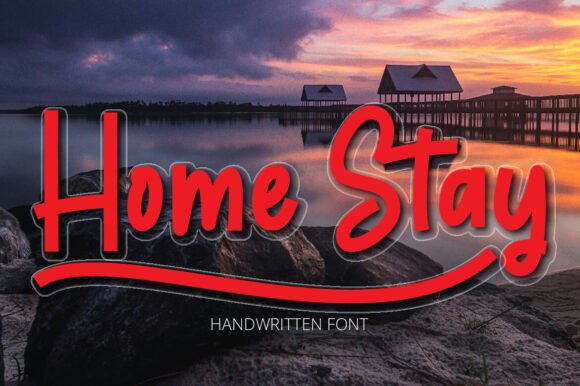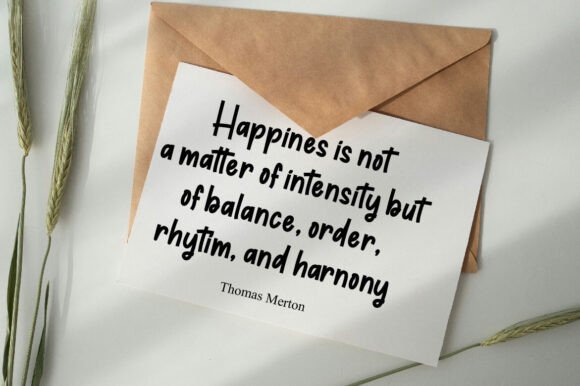
Home Stay Font
About the Home Stay Font
Explore the possibilities with Home Stay Font, a font that offers both beauty and functionality. Introducing Home Stay Font, an elegant modern handwritten font. It has a classy, elegant and modern look that can be used for logos, branding, invitations, stationery, wedding designs, social media posts, and much more! This font is PUA encoded which means you can access all of the amazing glyphs and ligatures with ease!
Home Stay Font’s elegant, modern handwritten style is ideally suited for headlines, short text blocks on invitations and branding materials, and social media graphics. Its refined aesthetic works well for upscale brands and projects requiring a touch of sophistication. However, avoid using it for large bodies of text or UI elements; its delicate nature makes it less legible in smaller sizes or extended use.
For optimal visual harmony, pair Home Stay Font with clean sans-serif fonts like Montserrat or Lato for a contemporary feel, or a classic serif like Garamond or Playfair Display for a more traditional look. These pairings create a balanced contrast, allowing Home Stay Font’s elegant script to shine without overwhelming the design.
The overall personality of Home Stay Font is sophisticated yet approachable. It projects an air of understated elegance, making it a perfect choice for brands aiming for a refined and friendly image.